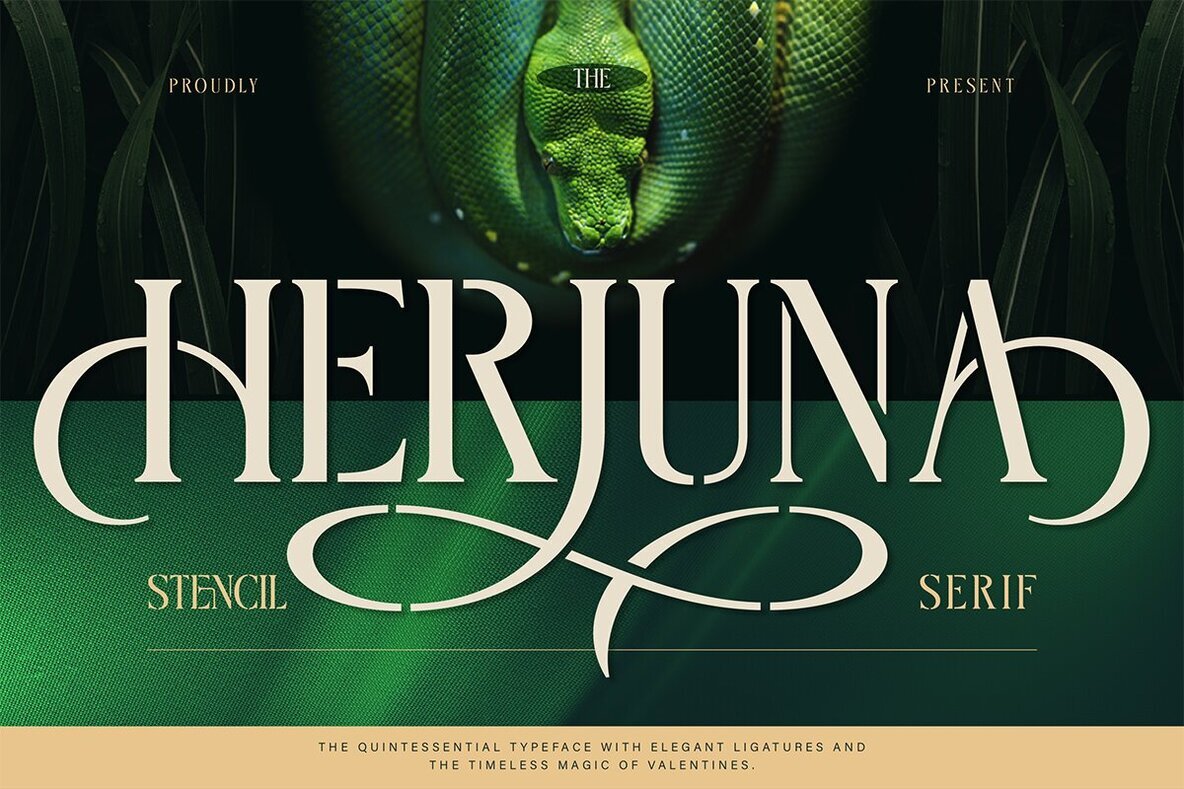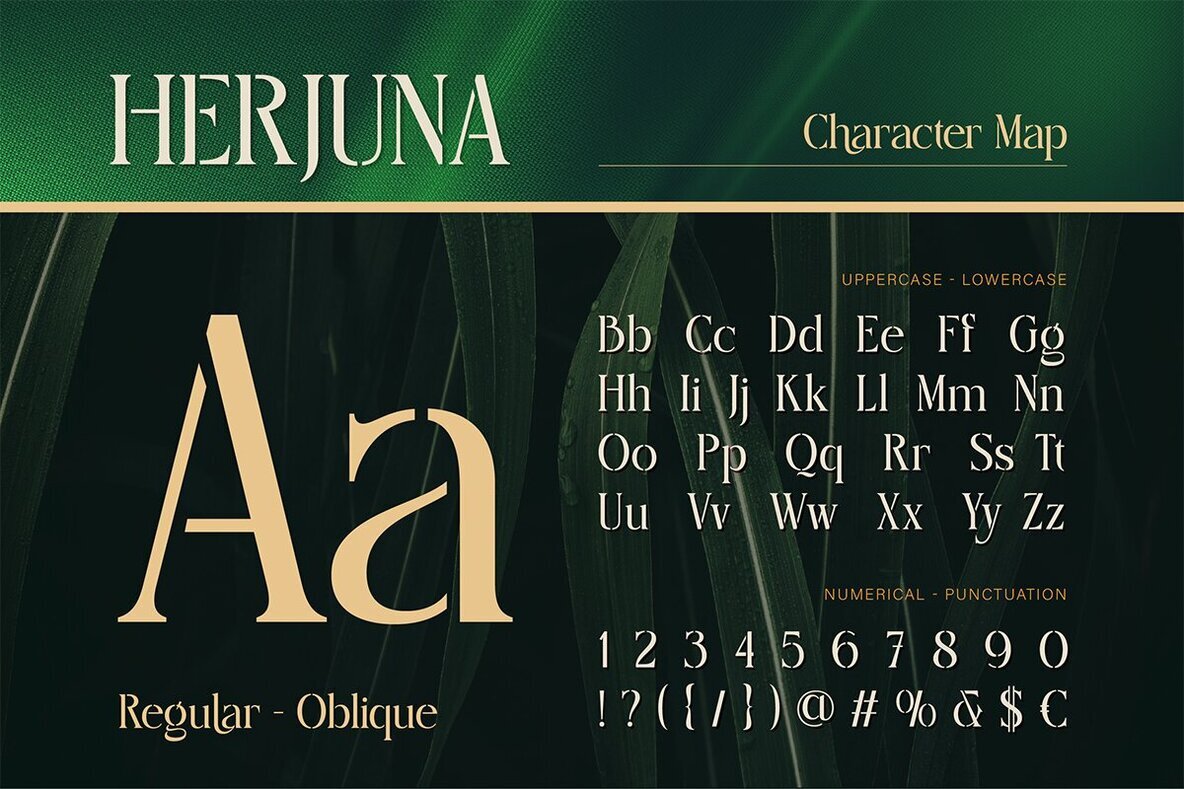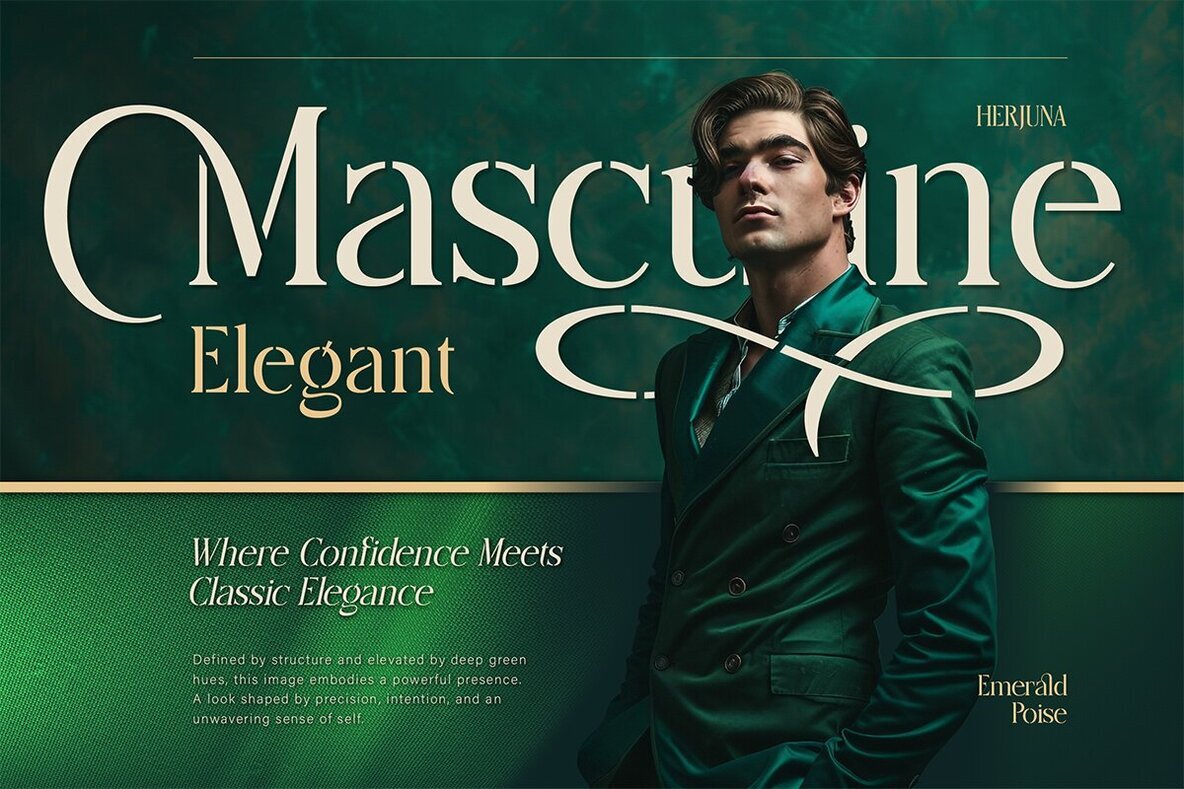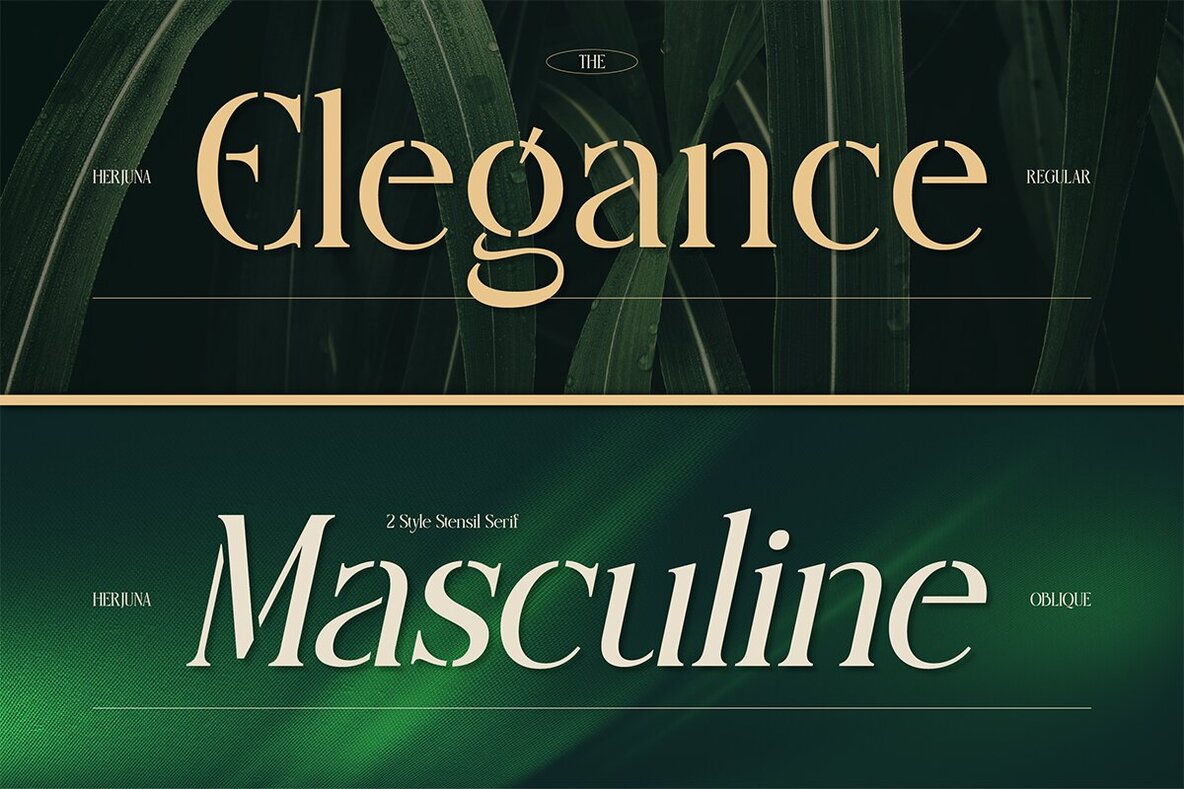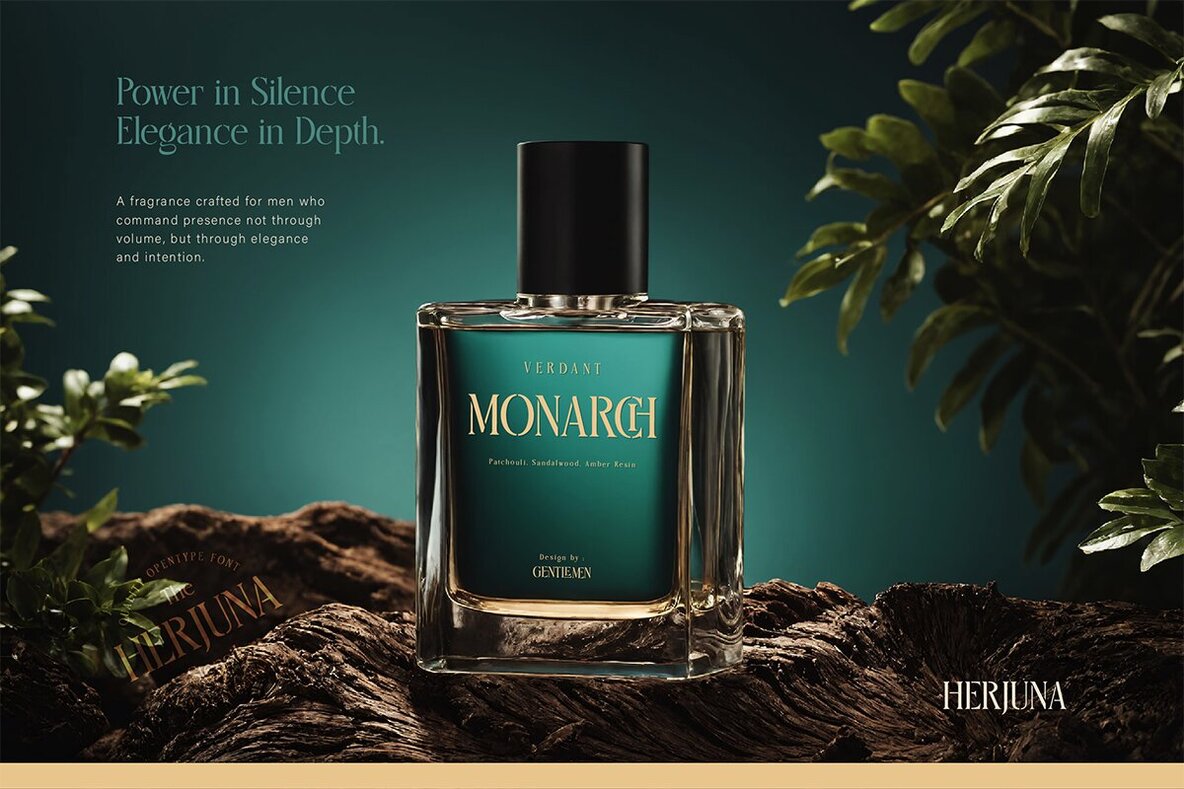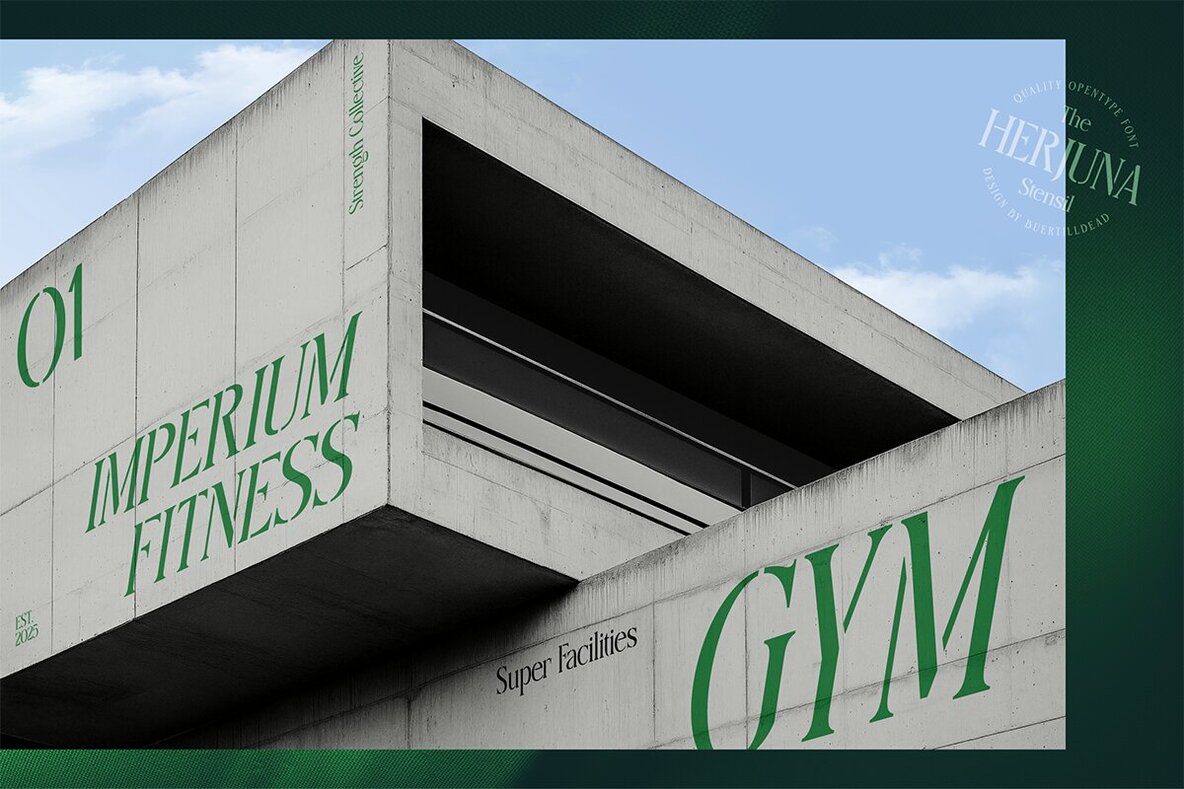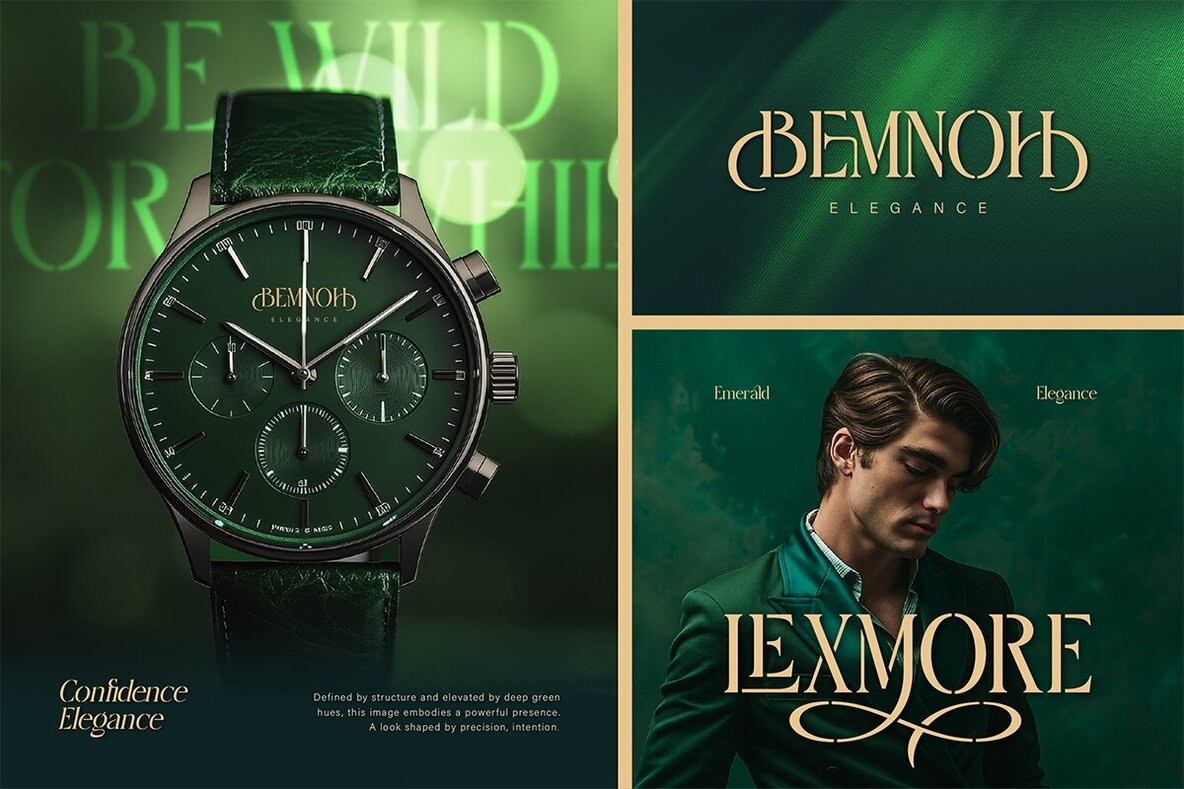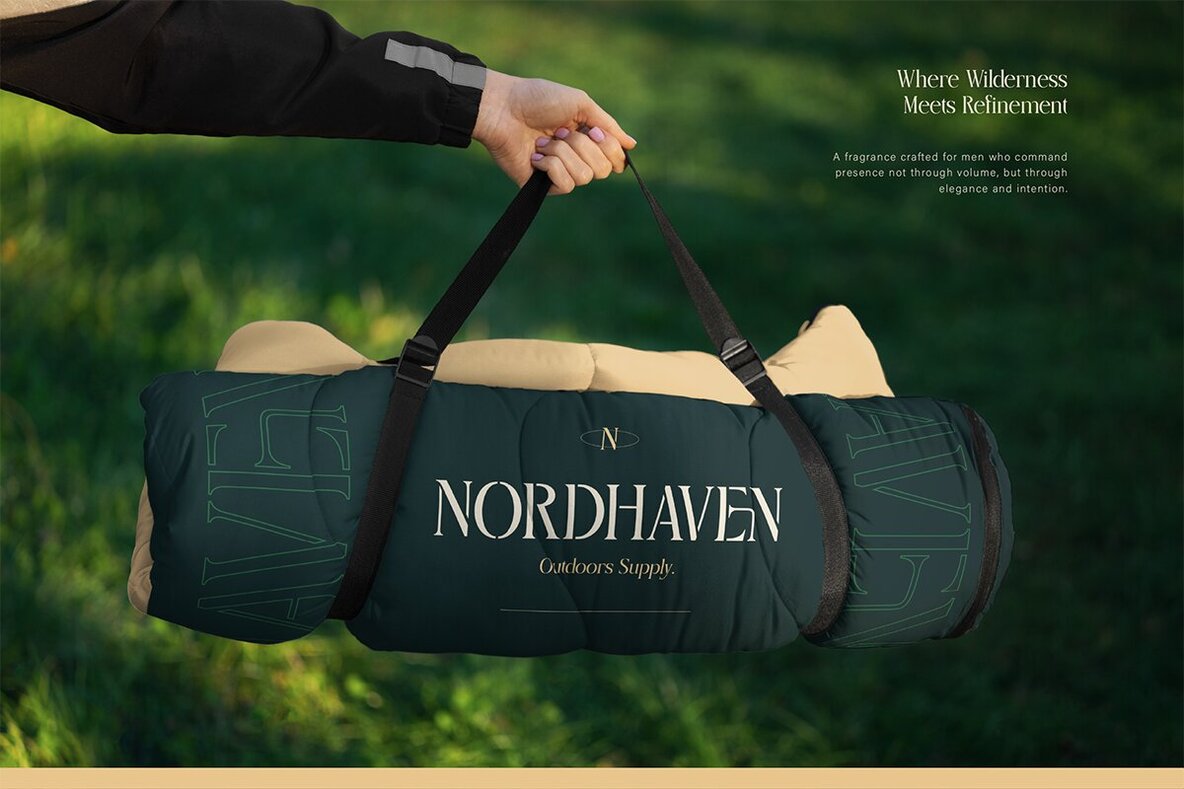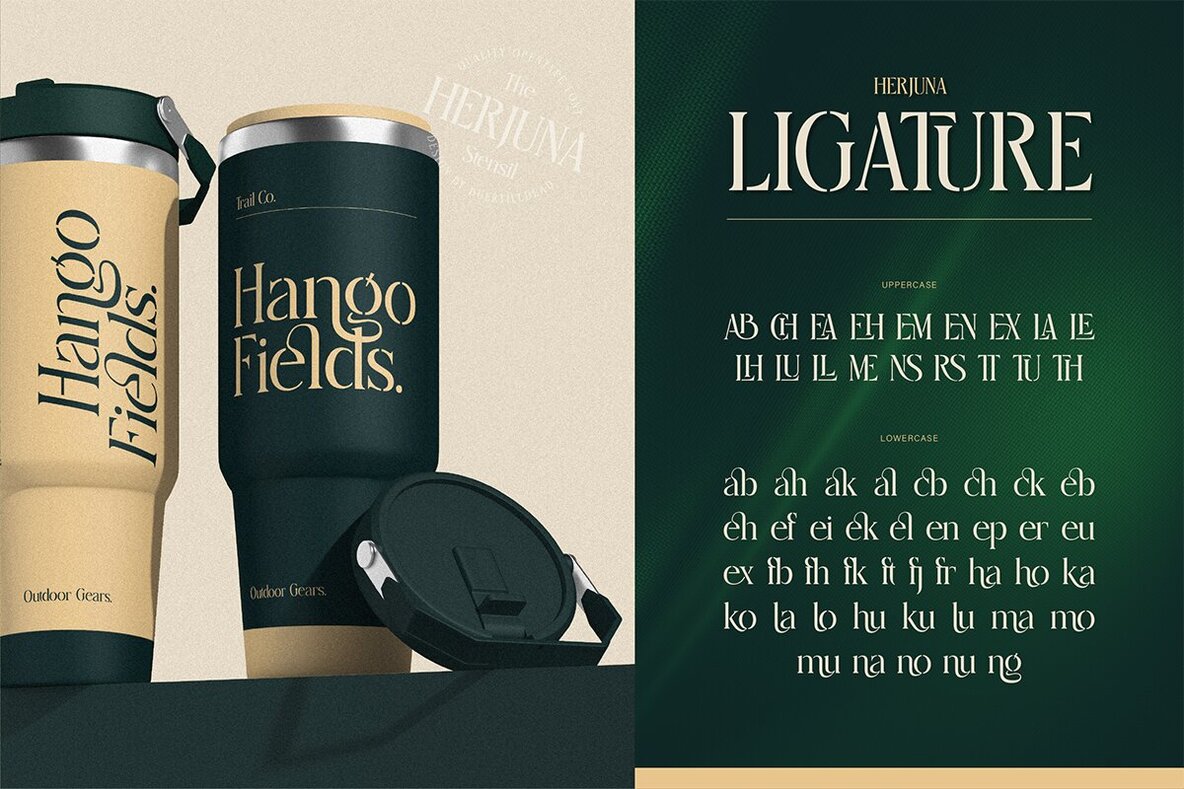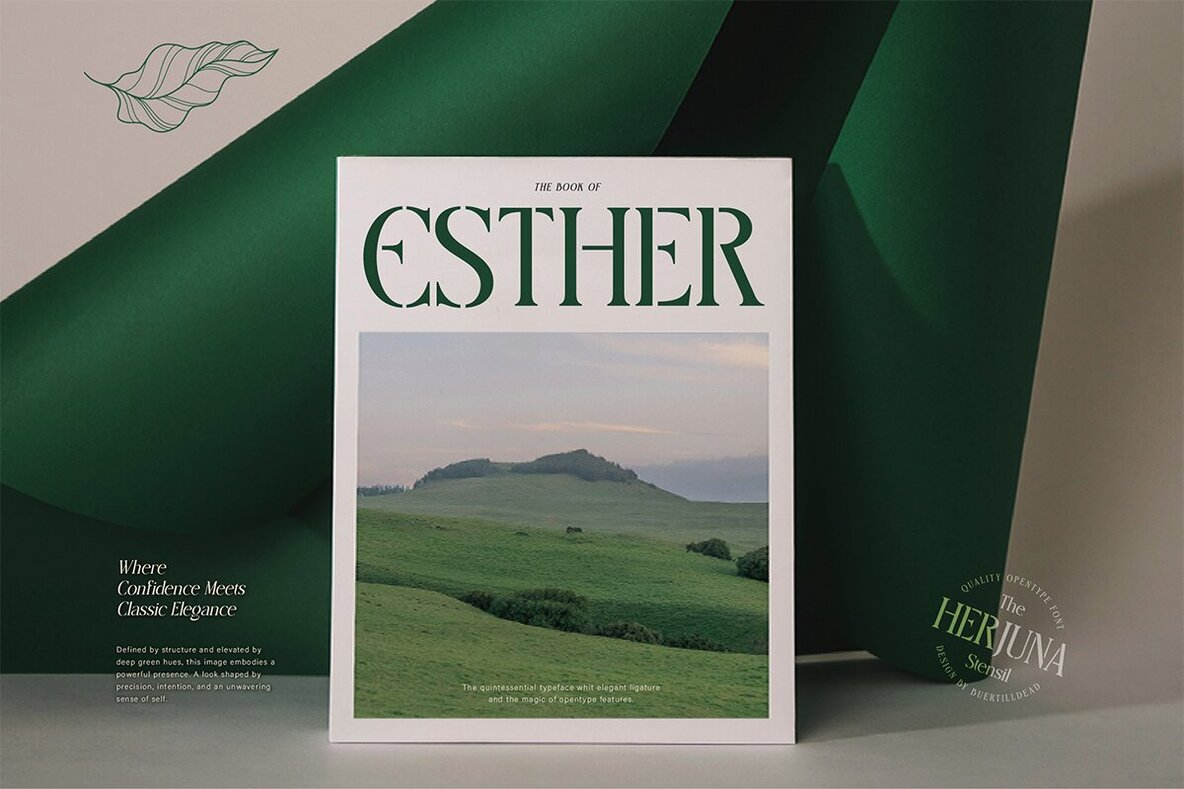
Herjuna Font
Herjuna Regular
Herjuna Oblique
Herjuna brings bold elegance and modern sophistication to your design work. With its striking serif stencil design, refined curves, and sharp contrast, this typeface merges classic appeal with contemporary style. Herjuna’s luxurious character ensures it stands out—ideal for premium branding projects where first impressions matter. Available in both Regular and Oblique styles, it lets you blend tradition with a modern edge for distinctive visual impact. Use Herjuna across diverse applications including logos, packaging, perfume branding, book covers, editorial layouts, invitations, wedding stationery, luxury fashion campaigns, and high-end product presentations. Its creative flexibility makes it well suited for designers seeking a typeface that leaves a lasting, timeless impression.Herjuna Serif Stencil Typeface